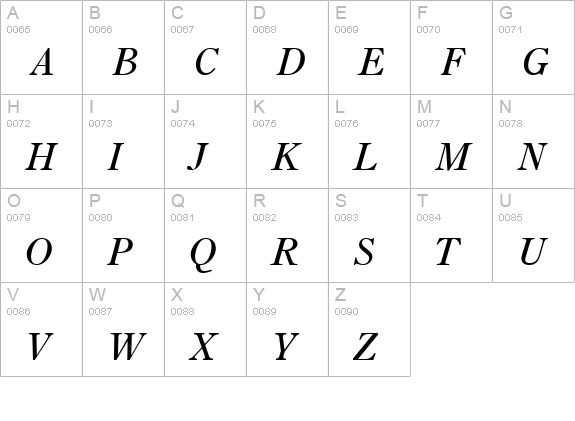
Partition OldStyle SSi Normal Font Details
Partition OldStyle SSi Normal is the standard, neutral variant in the Partition typeface family \xE2\x80\x94 well suited to general body text, paragraphs, and standard typographic work.
Partition OldStyle SSi Normal font is a classic and elegant typeface that exudes a timeless charm. With its refined and sophisticated design, this font is perfect for adding a touch of elegance to any project. The Partition OldStyle SSi Normal font features a unique blend of traditional and contemporary elements, making it suitable for a wide range of applications. Its smooth curves and balanced letterforms create a harmonious visual appeal that is pleasing to the eye. Whether you're designing a logo, crafting invitations, or creating stunning graphics, this font will elevate your work to new heights. Its versatility allows it to seamlessly adapt to various styles and themes, making it a valuable asset for designers of all levels. One of the standout features of the Partition OldStyle SSi Normal font is that it is freely available to download at FontsMarket.com. This means that you can easily access this beautiful font without any cost. With just a few clicks, you can enhance your designs with this elegant typeface. With its timeless appeal and availability as a free download, the Partition OldStyle SSi Normal font is a must-have for any designer or creative individual looking to make a lasting impression. Don't miss out on the opportunity to add this stunning font to your collection. Download it today and let your creativity soar!